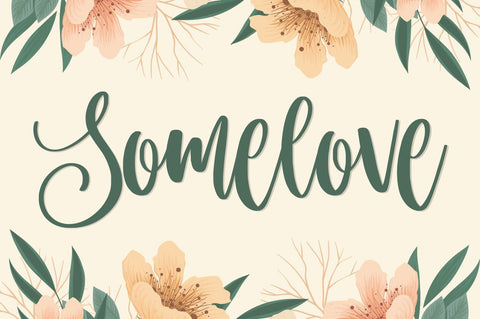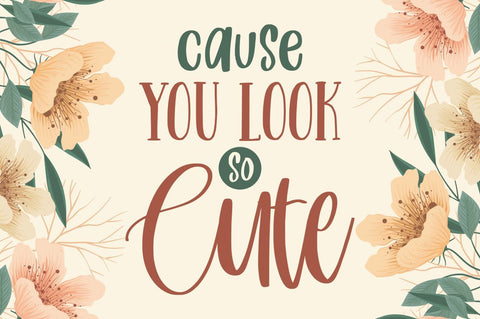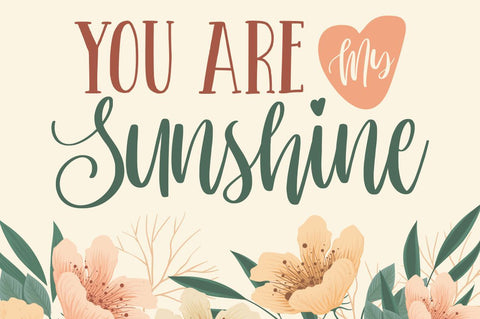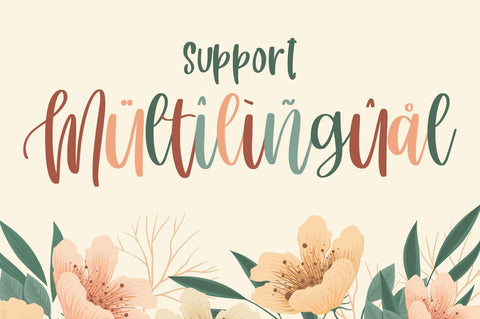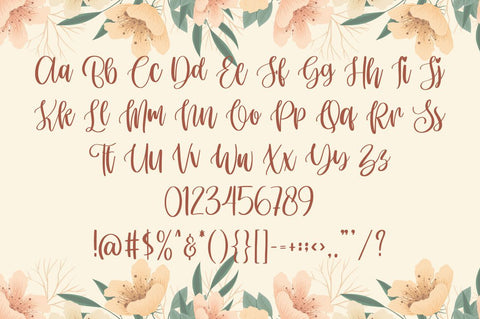
Somelove – Handlettering Font
Introducing: Somelove – Handlettering Font
Somelove handlettering font make from handlettering ideas in typeface. This font includes full of Alphabetical glyphs, Numerals, and punctuation. This is so perfect for invitations, monograms, wedding, fashion, branding, label, handlettering or logotype.
- Very great for branding, logotype, handletteing, invitations, or fashion branding.